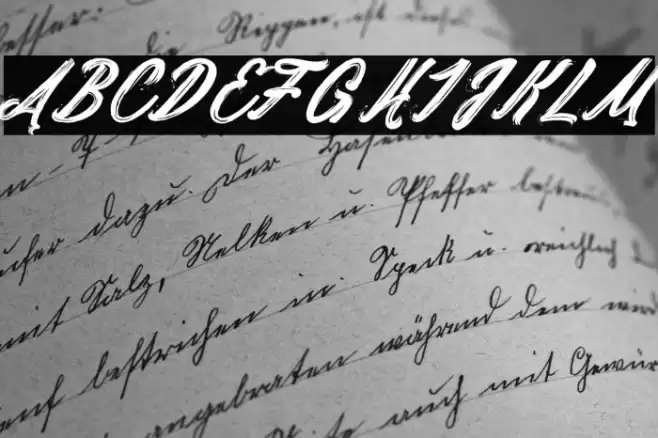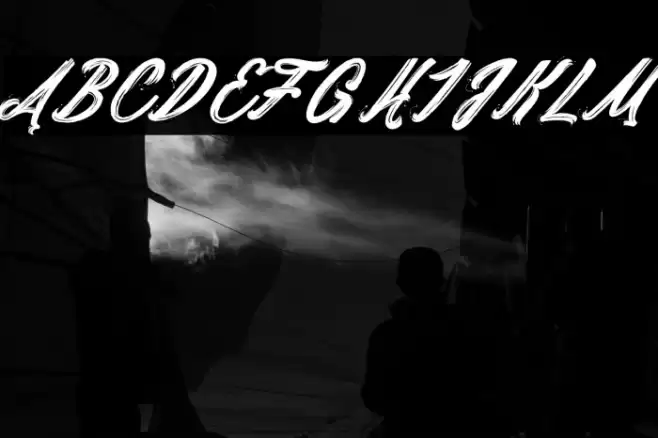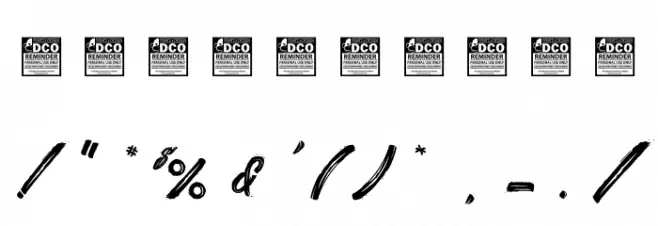
Daylight&Moonlight 2_PersonalUseOnly Font
Daylight&Moonlight 2_PersonalUseOnly Description
This font features a bold and expressive script style with a dynamic flow, characterized by its brush-like strokes and fluid movement. The uppercase letters exhibit a strong presence with sweeping curves and elegant loops, while the lowercase letters maintain a cohesive and harmonious appearance. The numbers and special characters are crafted with the same artistic flair, ensuring consistency throughout the typeface. The overall design exudes a sense of creativity and spontaneity, making it suitable for projects that require a touch of artistic expression.
A bold, expressive script font with brush-like strokes and dynamic flow from Uncategorized fonts.
- Font: Daylight&Moonlight 2_PersonalUseOnly
- Proposed Projects: Ideal for branding, invitations, posters, and any design requiring an artistic and expressive touch.
- Use Case: Logos, Headlines, Artistic projects